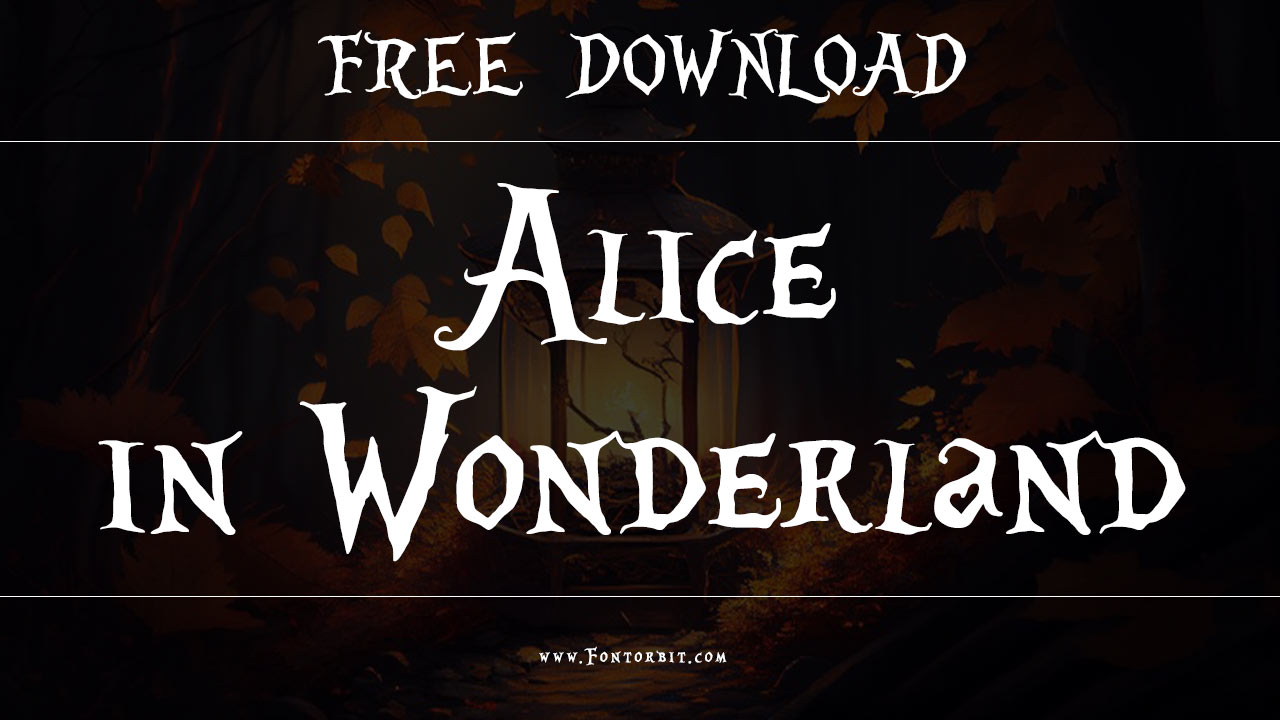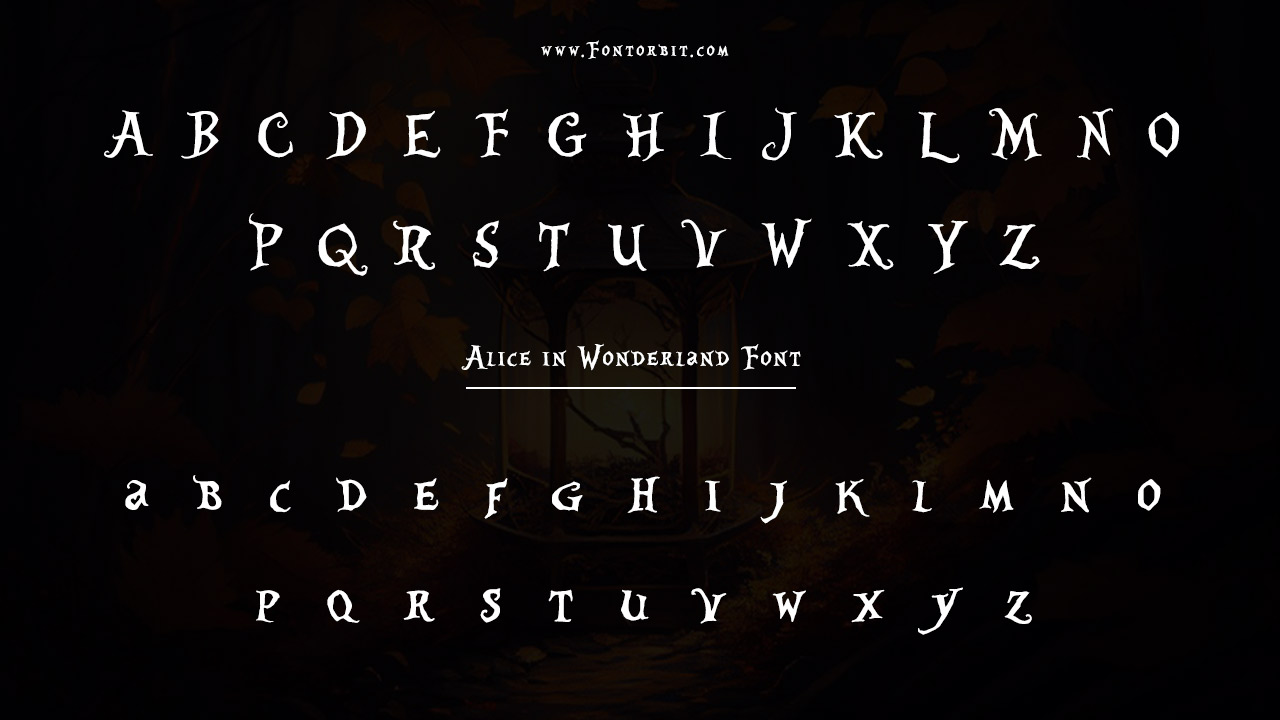
The Alice in Wonderland Font is a whimsical and elegant typeface created by Marco Trujillo López, inspired by the enchanting world of Tim Burton’s Alice in Wonderland movie. This wonderland font captures the essence of Lewis Carroll’s classic tale, combining playful and gothic elements to create a unique style. Whether you are working on posters, logos, or signs, this font will transport your design project into a fantastical realm. Ideal for themes related to the mystical rabbit hole, Alice’s Adventures, or any fantasy-themed creative endeavor.
The Alice in Wonderland Font comes in 1 style, providing a unique design option for various creative needs. This typeface stands out with its medieval Gothic roots, evoking the magical atmosphere of Wonderland. It’s ideal for projects ranging from posters, logos, to book covers, capturing the essence of Alicia Wonderland and its iconic characters like the White Rabbit.
The Alice In Wonderland Font Found In Use
The Alice in Wonderland Font is extensively used in designs related to fantasy, whimsy, and adventure. Whether you’re working on branding for a Cricut design space project, creating movie posters, or crafting unique logos, this font brings a magical touch. Ideal for:
The Alice in Wonderland Font by Marco Trujillo López is a gothic script font that is perfect for whimsical and fantasy-themed projects. Whether you’re designing logos, signs, or posters, it is a perfect font to evoke a sense of adventure. This font is ideal for creating designs inspired by Tim Burton, Lewis Carroll, and the magical world of Wonderland.
1.What Makes Alice In Wonderland Font Unique?
The Alice in Wonderland Font stands out due to its gothic script font elements, evoking the whimsical and mystical world inspired by Tim Burton’s film adaptation. It blends the eerie charm of Wonderland with a fantasy vibe, making it perfect for anything related to Alice’s Adventures.
2.How Can I Use The Alice In Wonderland Font In My Design Projects?
This perfect font is ideal for creating logos, posters, signs, and other design projects that need a touch of fantasy or whimsy. It’s also great for Cricut Design Space to add creative flair to crafts or any main content of your project related to Alice in Wonderland.
3.What Are Some Similar Fonts To Alice In Wonderland Font?
If you’re looking for fonts that provide a similar gothic or whimsical feel, consider Alicia Wonderland, Timeless Script Font, or Gothic Alice. These free high-quality fonts share a similar aesthetic and can be used for various creative designs like logos and posters.